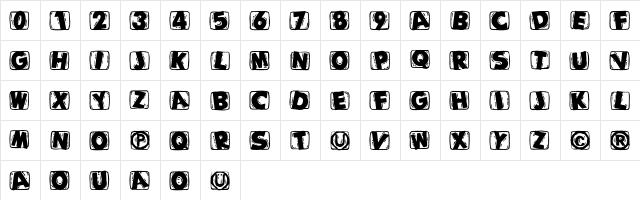
WoodcuttedCapsBlack Regular
Design Context for WoodcuttedCapsBlack Typeface
WoodcuttedCapsBlack taps into classic Western woodtype traditions — bold, characterful, and impossible to ignore.
A natural fit for craft spirits, ranch branding, rodeo events, and Americana-inspired design work.
Font Pairing: Combine WoodcuttedCapsBlack with a simple slab or neutral sans — period-accurate companions reinforce the vintage feel without competing for attention.
Pro Tip: Use WoodcuttedCapsBlack for short, impactful bursts of text — it shines in poster headlines and product names rather than extended copy.